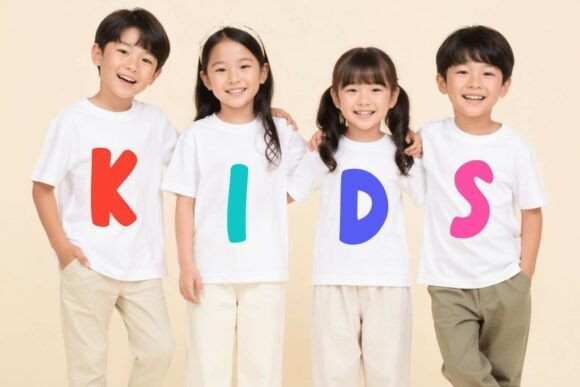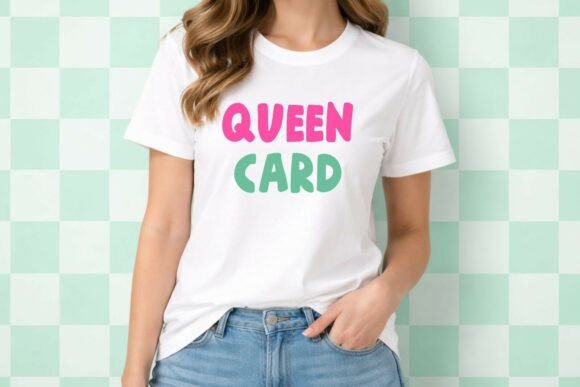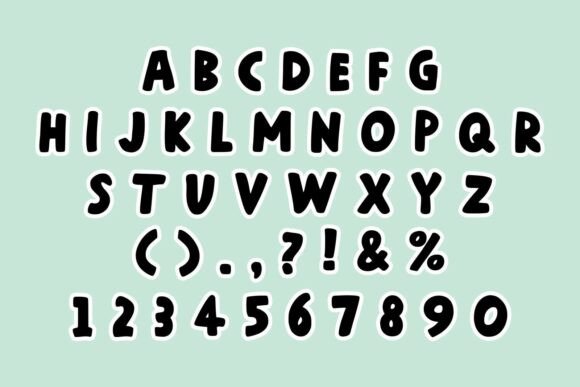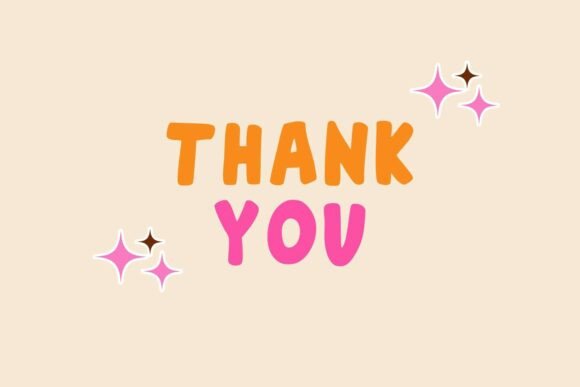
Introduction to Playful Daily Font
Playful Daily Comic Cartoon Font is a fun and cheerful display typeface inspired by comic books and playful cartoon styles.
With its bold, rounded letters and lively personality, this font is perfect for childrenโs designs, comic projects, posters, stickers, t-shirt designs, social media graphics, and creative branding Its friendly and energetic style makes any design feel more vibrant, playful, and eye-catching.